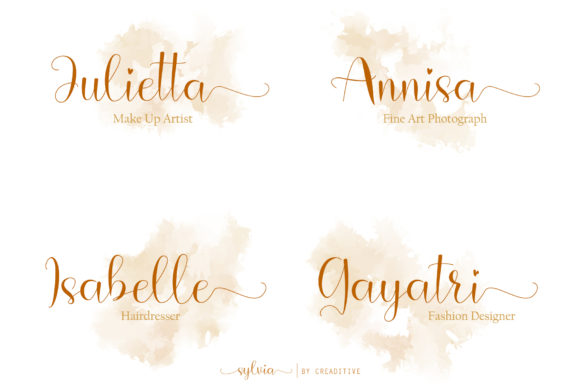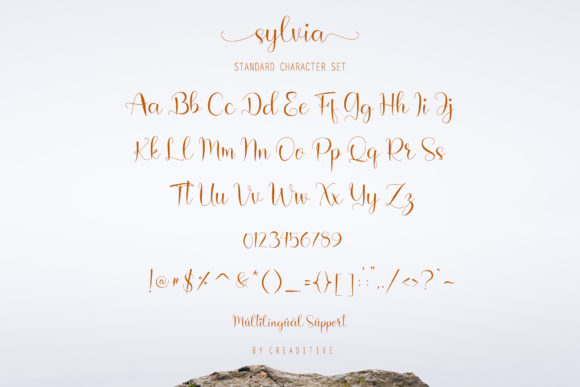
About Sylvia Font
Sylvia is a lovely handwritten font. It can be used for various purposes such as logos, wedding invitations, headings, t-shirts, letterhead, signage, labels, news, posters, badges and so much more.